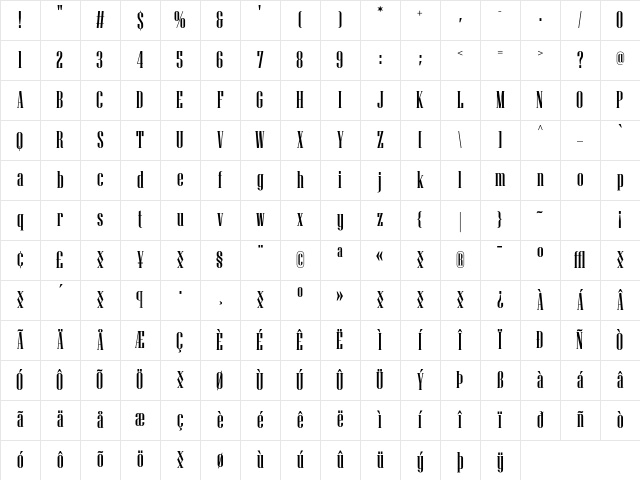
Niagara Solid
Design Context for Niagara
Niagara is a composed and adaptable typeface that performs quietly and consistently across a wide range of design contexts.